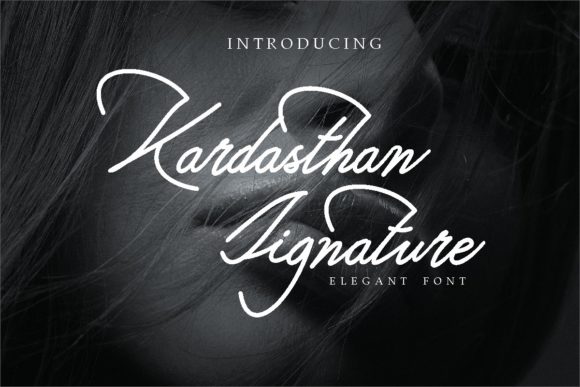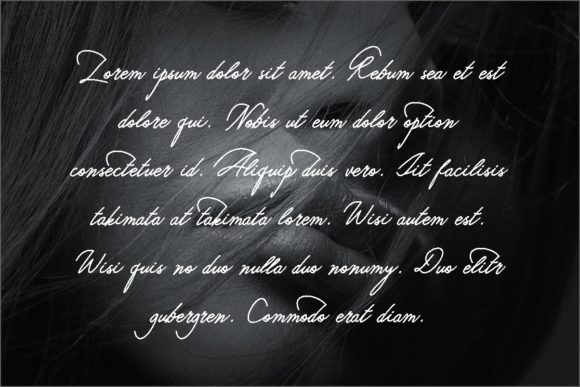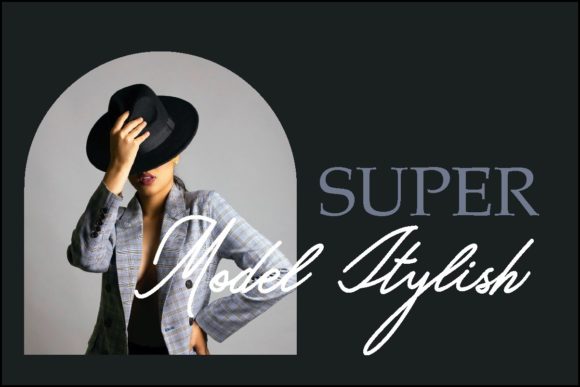
About Khardasthan Signature Font
Khardasthan Signature is a beautiful, vintage-styled, and delicate script font that brings a touch of elegance to your designs. With its vintage-inspired aesthetic, this font adds a sense of nostalgia and charm. It is perfect for creations that require a dainty flow and a whimsical touch.
The beauty of Khardasthan Signature lies in its delicate script style, which exudes grace and sophistication. The intricate letterforms and flowing strokes create an elegant and vintage look. Whether you’re working on wedding invitations, logos, branding materials, or any other project, Khardasthan Signature font adds a touch of beauty and refinement.
The vintage-styled nature of Khardasthan Signature transports your designs to a bygone era. It captures the essence of classic typography, bringing a sense of nostalgia and timelessness. This font is ideal for designs that seek to evoke a vintage or retro atmosphere, adding a unique and captivating element.
The dainty flow and whimsical touch of Khardasthan Signature create a sense of delicacy and charm. The graceful curves and subtle details add a touch of playfulness to your typographic compositions. It enhances the overall visual appeal and leaves a lasting impression.
Incorporating Khardasthan Signature into your designs allows you to evoke a sense of vintage elegance and whimsy. Its dainty flow and whimsical touch add a unique and enchanting quality to your creations.
In summary, Khardasthan Signature is a beautiful, vintage-styled, and delicate script font that brings elegance and whimsy to your designs. Embrace its dainty flow and whimsical touch, and let it enhance your creations with a touch of vintage charm and sophistication.